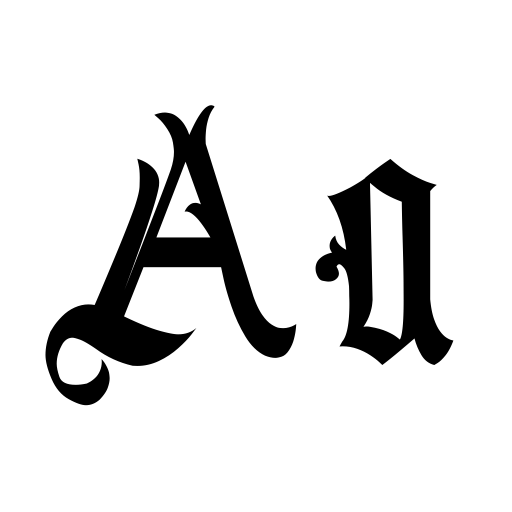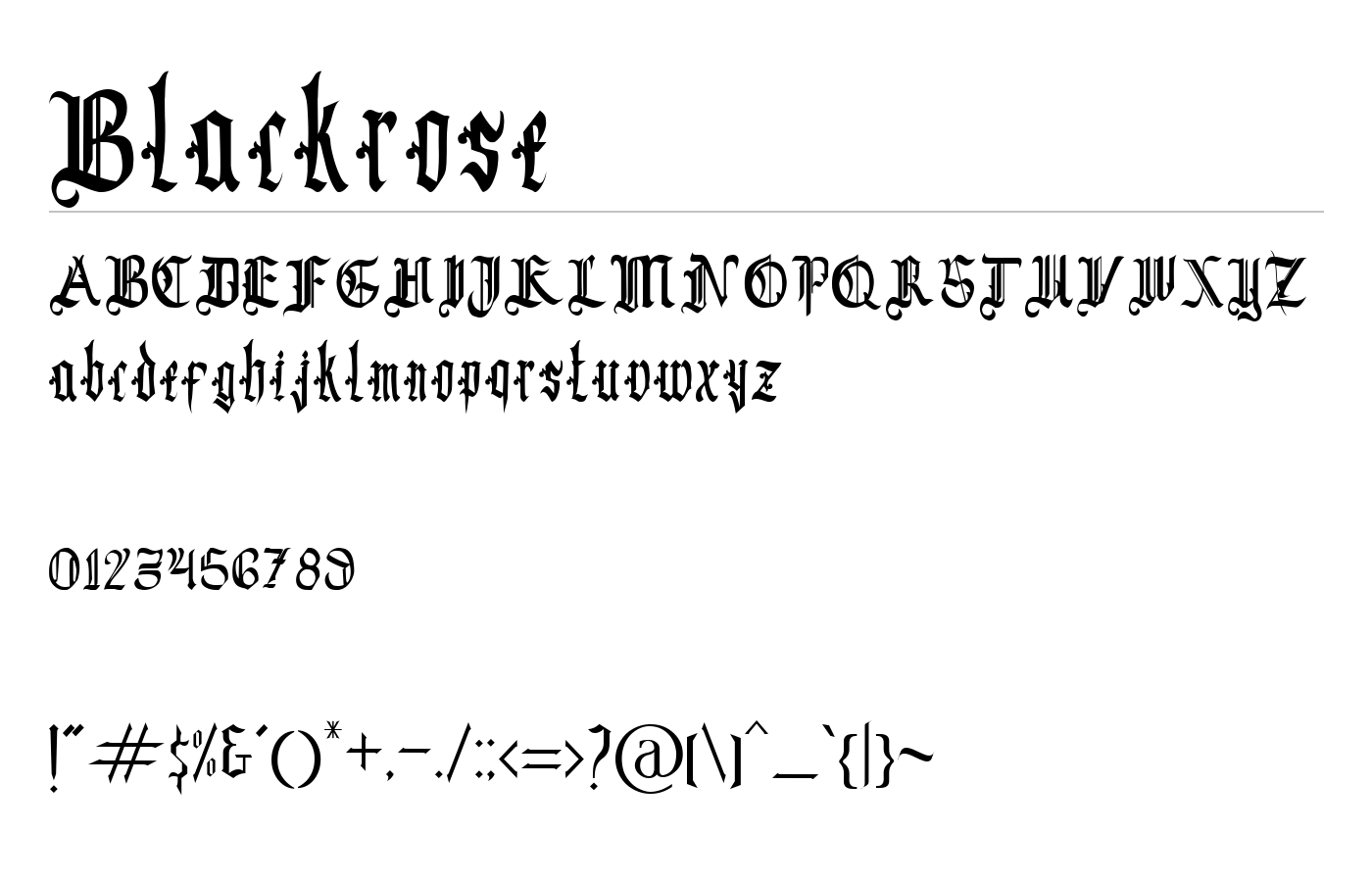
Blackrose is a bold blackletter serif font with intricate, sharp strokes and high contrast between thick and thin lines, giving it a striking gothic appearance. Its elaborate and ornate letterforms convey a vintage, medieval mood, making it ideal for branding that seeks to evoke tradition, mystery, or old-world elegance. This font works best in headlines, logos, or decorative titles where a dramatic and historical atmosphere is desired.
Blackrose Font
About Blackrose Font